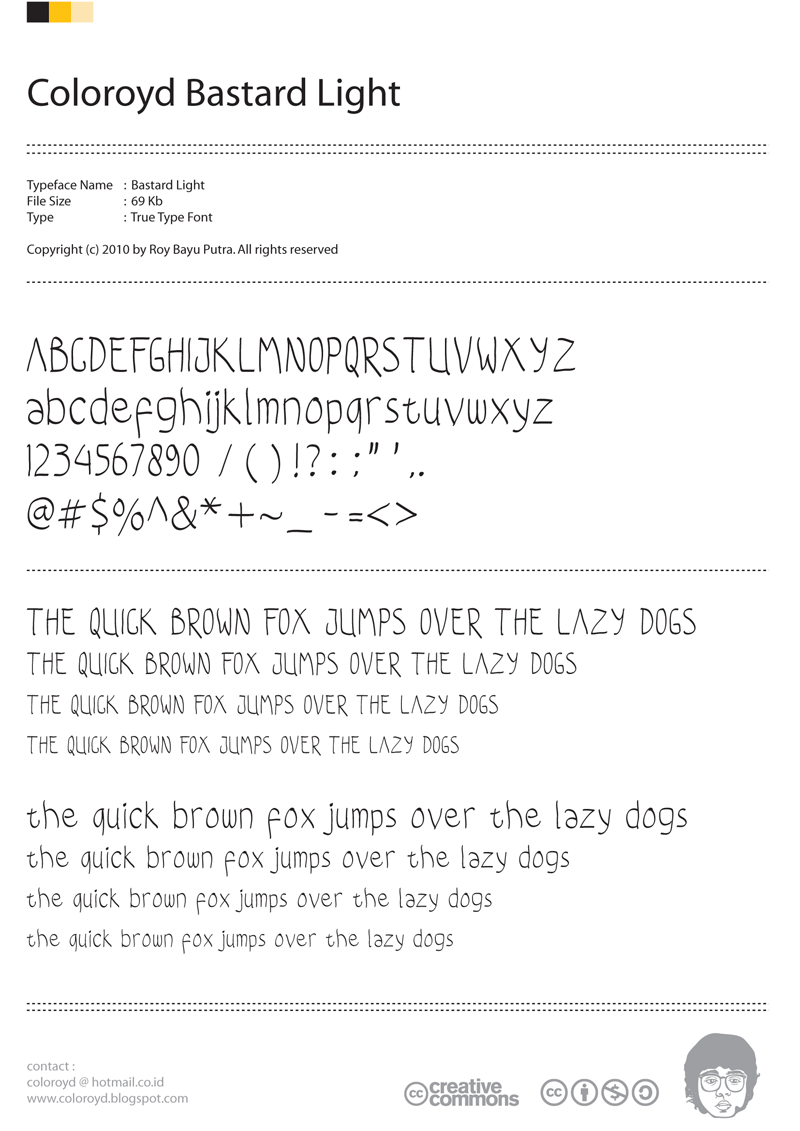
Preview and download Coloroyd Bastard Font. Created by Roy Bayu Putra in Script Handwritten styles with 100% Free license.
Font name: | Coloroyd Bastard |
Author: | Roy Bayu Putra |
Note by Roy Bayu Putra | |
this is CLRD bastard light this font based on my hand writing fell free to download cheerss !!! |